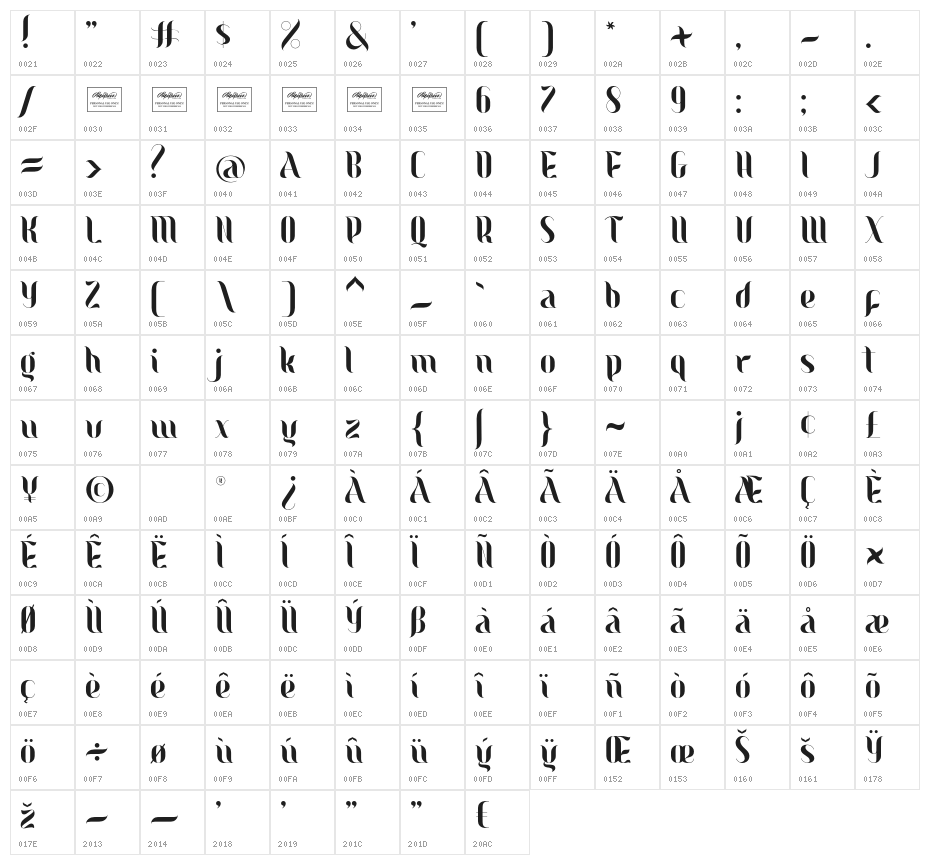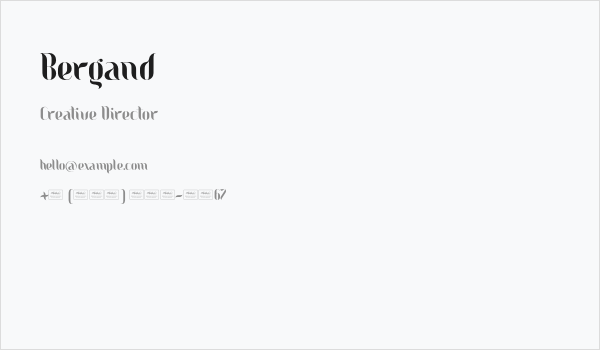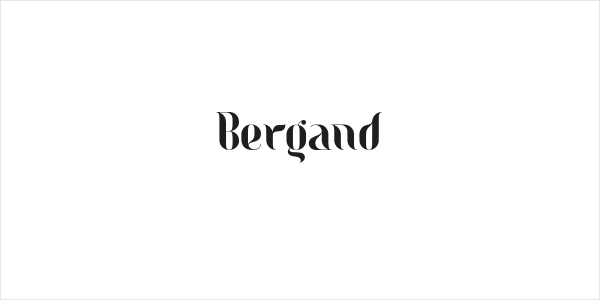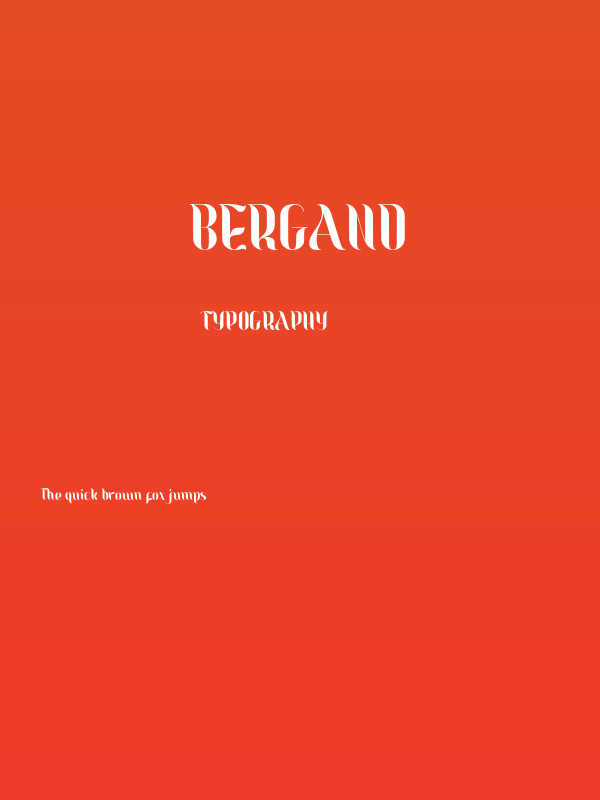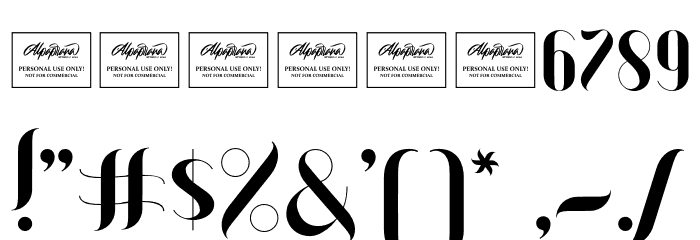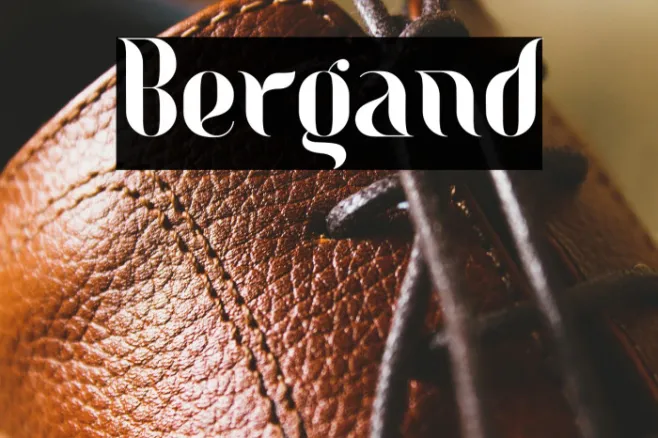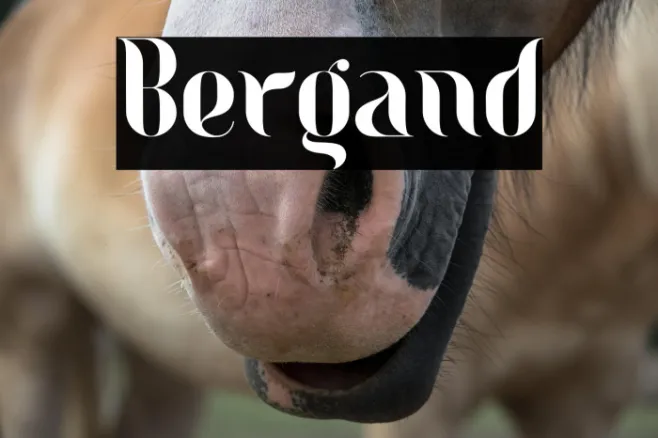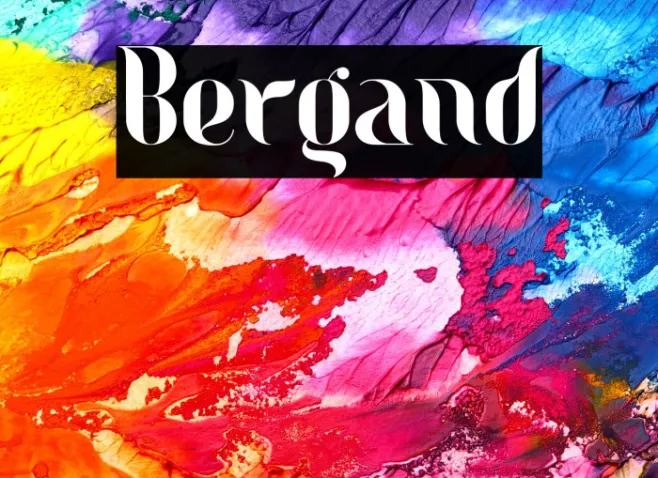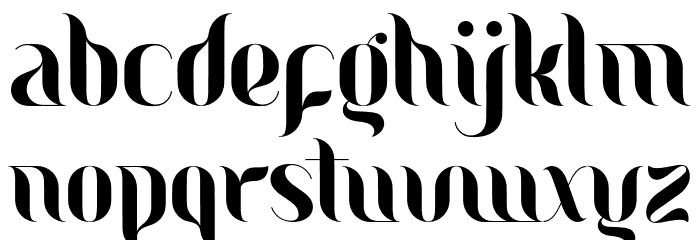
Bergand Font
Bergand Description
This font features a striking and elegant design with high contrast between thick and thin strokes, creating a dramatic and sophisticated appearance. The uppercase letters are bold and commanding, with a unique blend of sharp angles and smooth curves. The lowercase letters maintain a consistent style, offering a harmonious flow that complements the uppercase. The numerals are distinct and stylish, matching the overall aesthetic. Special characters are crafted with the same attention to detail, ensuring a cohesive look across all elements. This font is ideal for projects that require a touch of elegance and flair.
| Proposed Projects | Perfect for luxury branding, wedding invitations, high-end product packaging, and editorial design. |